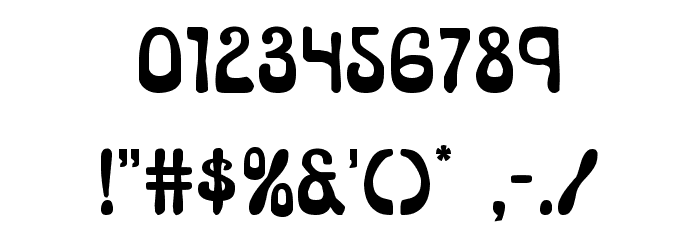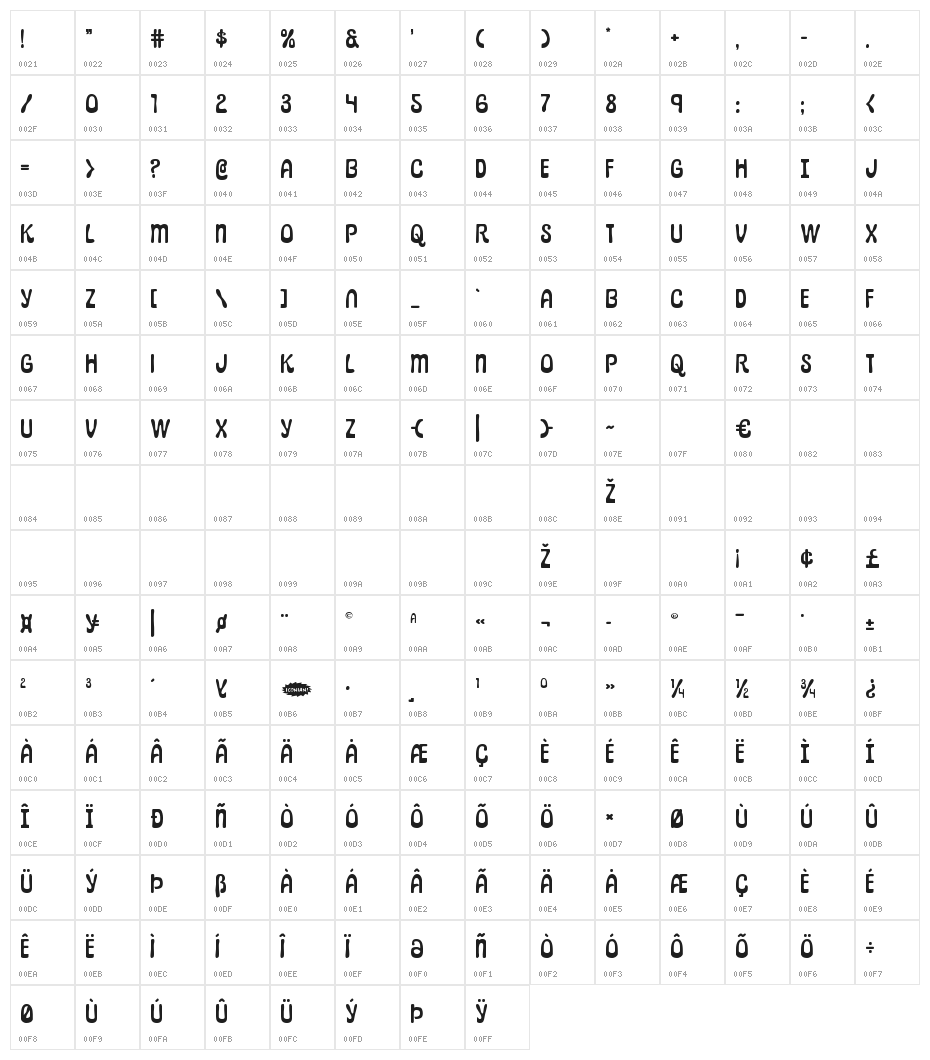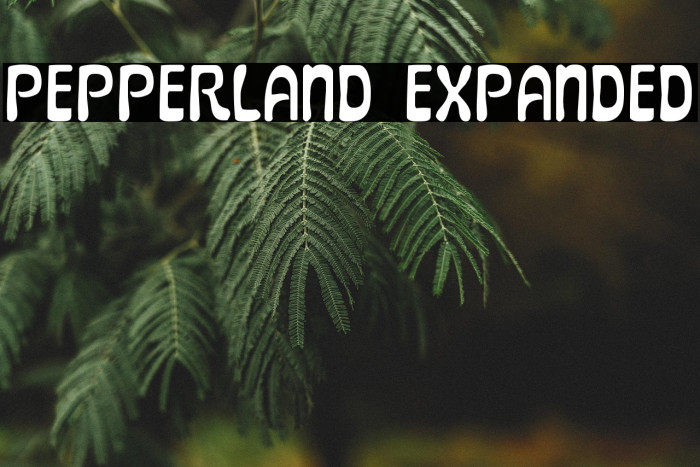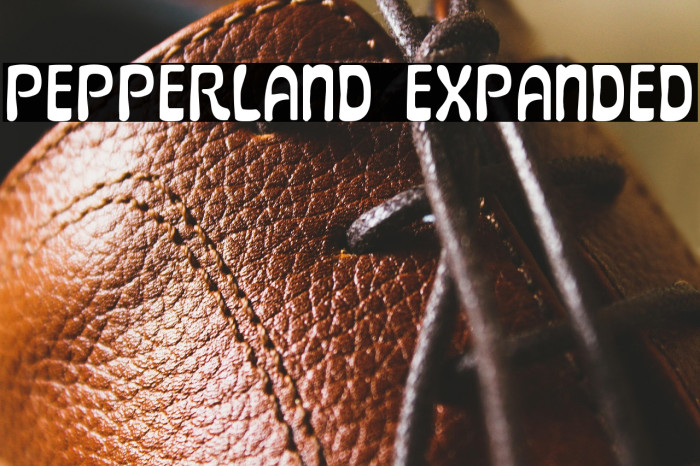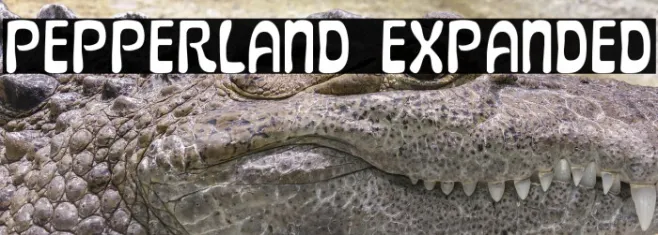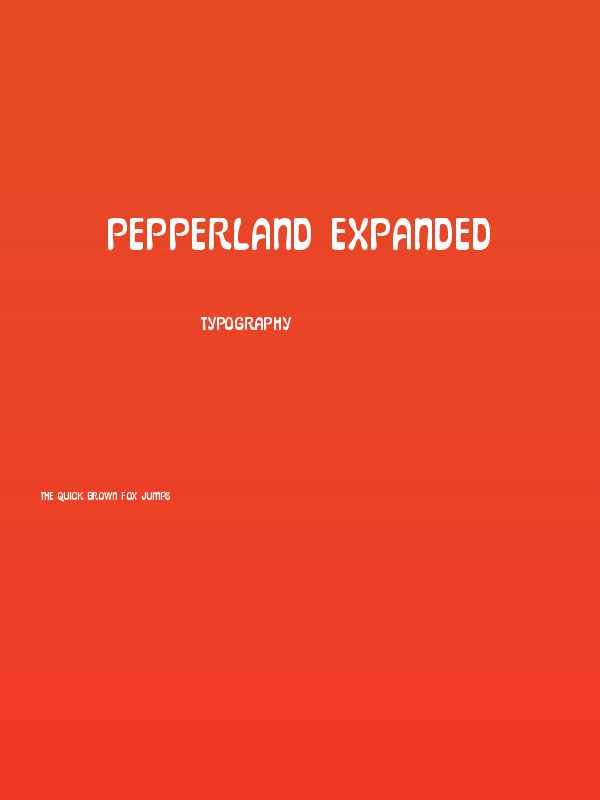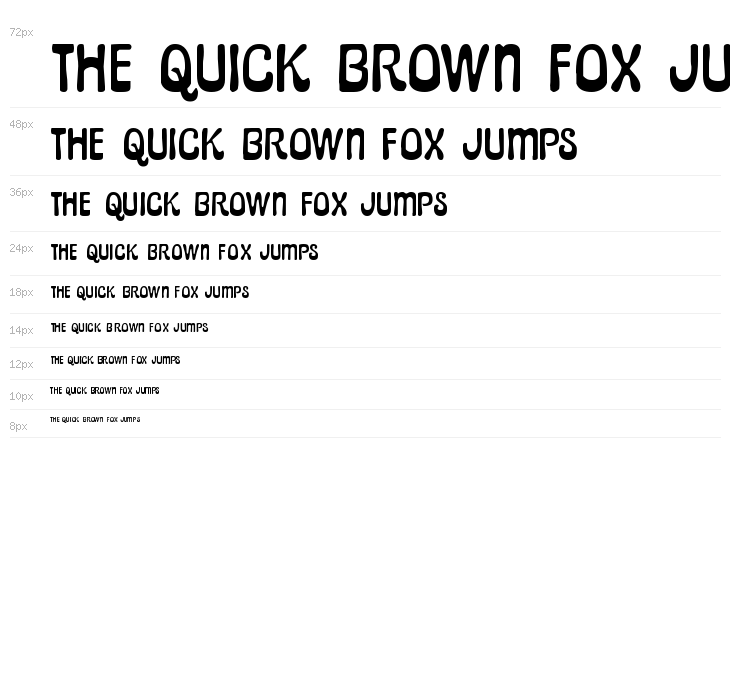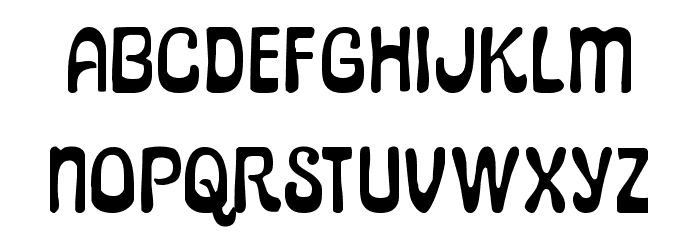
Pepperland Expanded Font
Pepperland Expanded Description
This font features a playful and whimsical design with rounded edges and a bold presence. The characters are expanded, giving them a wide and open appearance. The strokes are consistent in width, providing a uniform look across all letters and numbers. The style is reminiscent of retro or vintage designs, with a touch of modern flair. The special characters maintain the same playful aesthetic, making them suitable for creative and informal projects.
| Overall Style | Retro, Playful |
| Proposed Projects | Ideal for children's books, playful branding, posters, and retro-themed designs. |